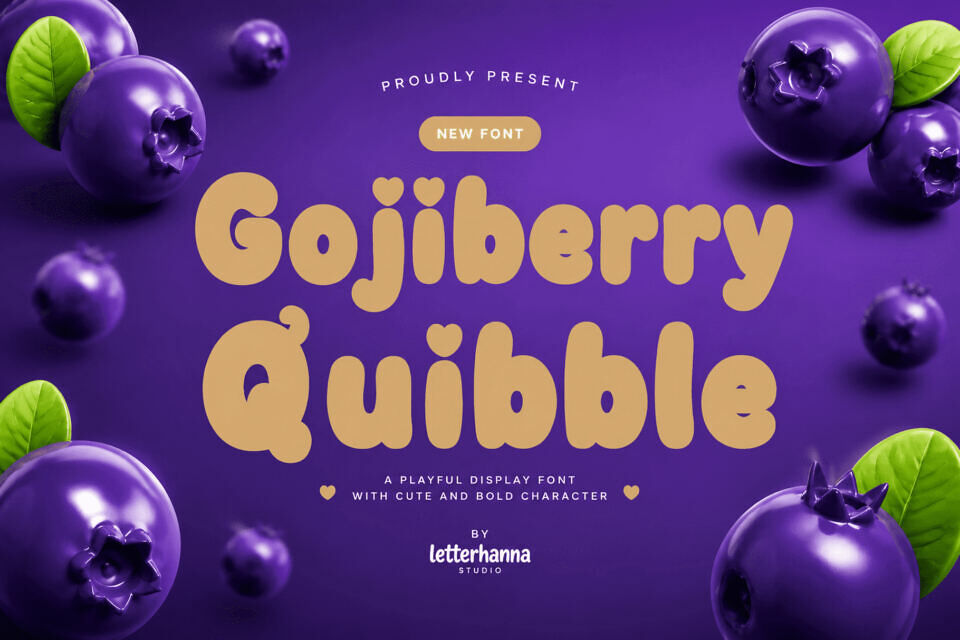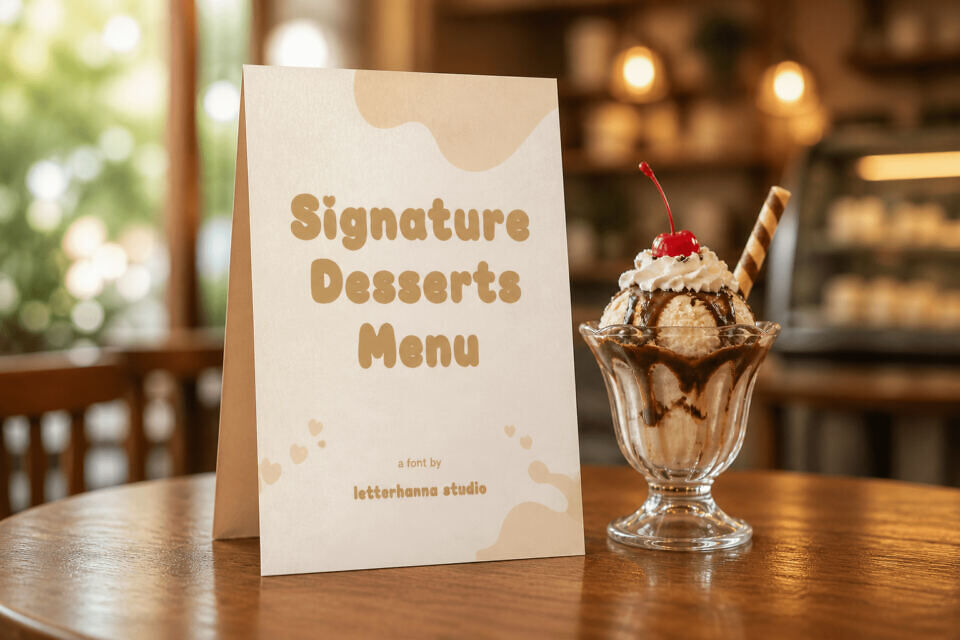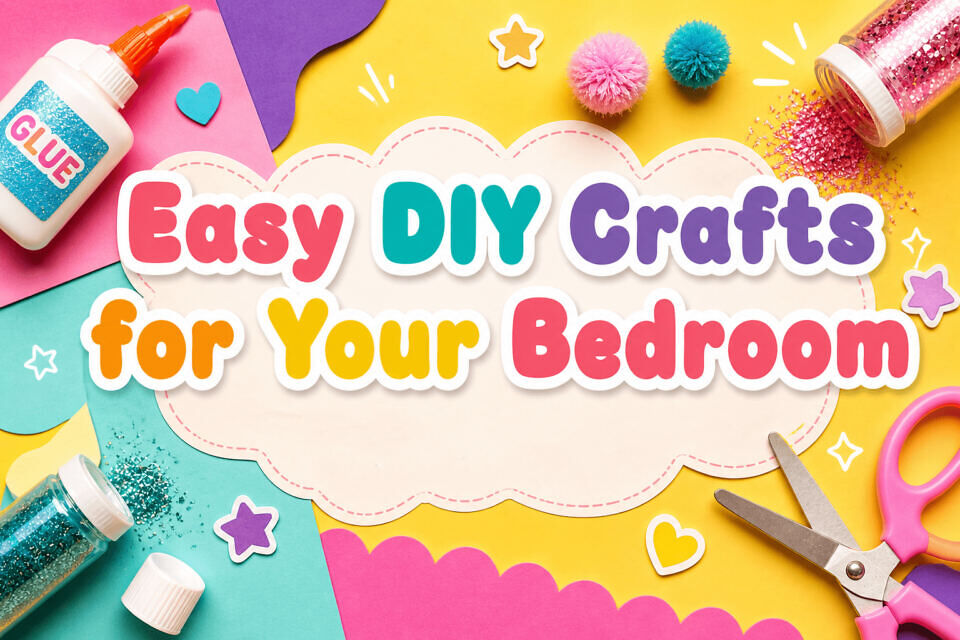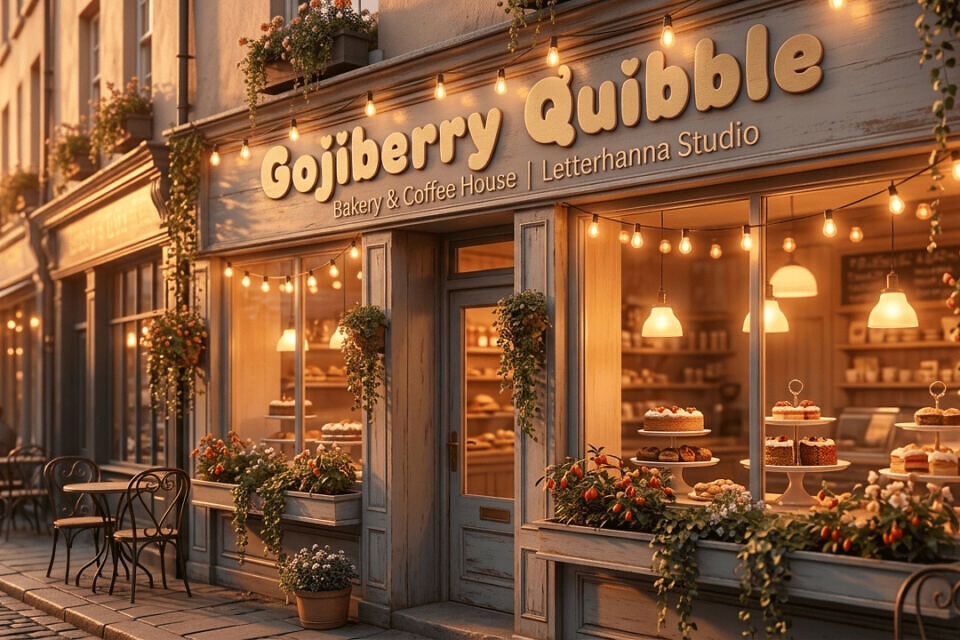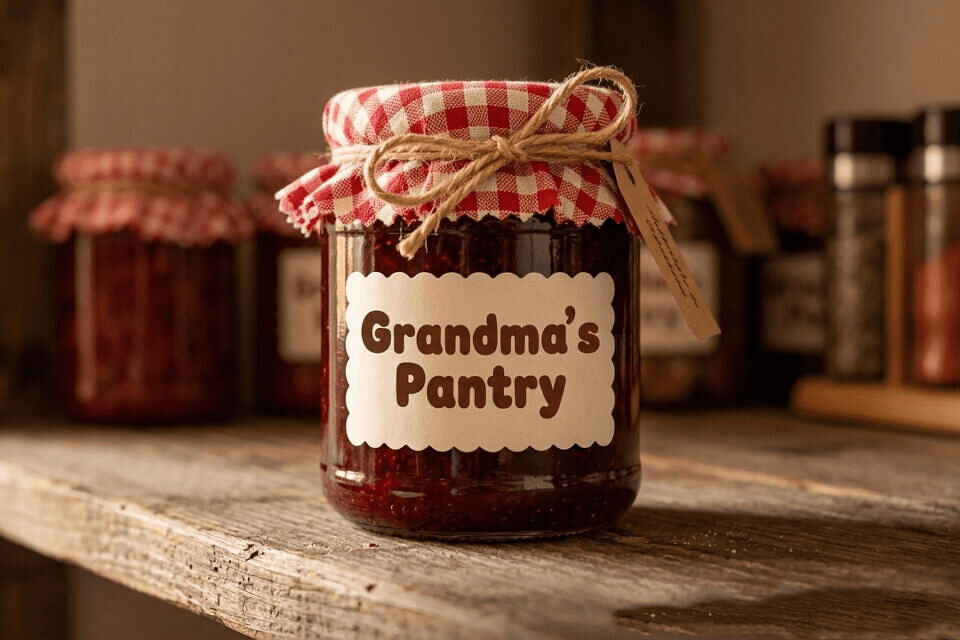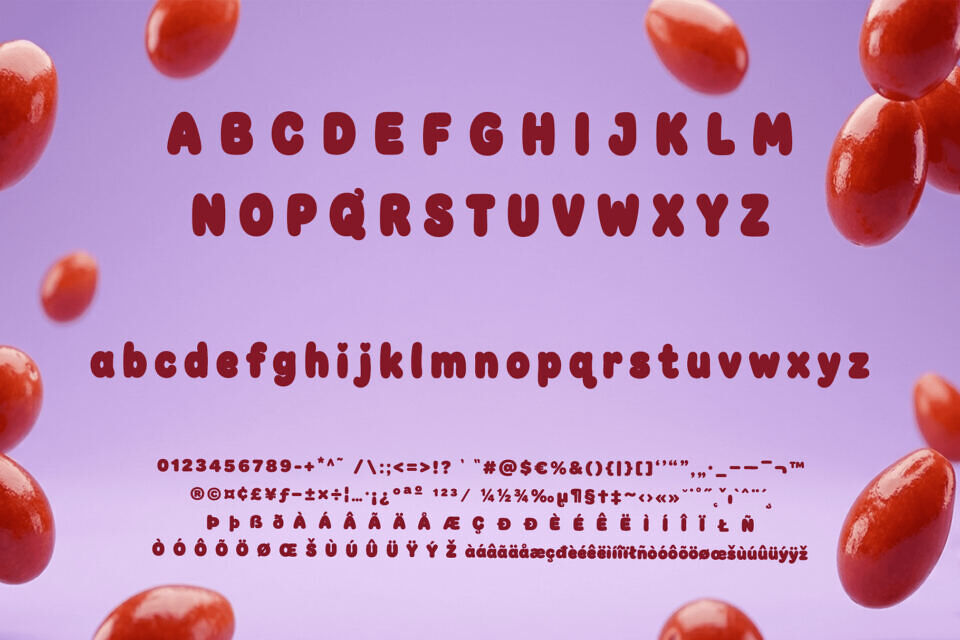
Built for the bold, the bright, and the beautifully chaotic world of kids’ design, Gojiberry Quibble is a chunky, rounded display font that brings instant joy to everything it touches. Whether you’re designing a birthday party invitation, a children’s book cover, a classroom poster, or a playful brand identity — this font does the heavy lifting with a smile.
The letterforms are thick, bouncy, and deliberately imperfect in the most charming way. Every curve is soft. Every edge is friendly. The weight feels substantial without being aggressive — like a gummy bear that went to the gym.